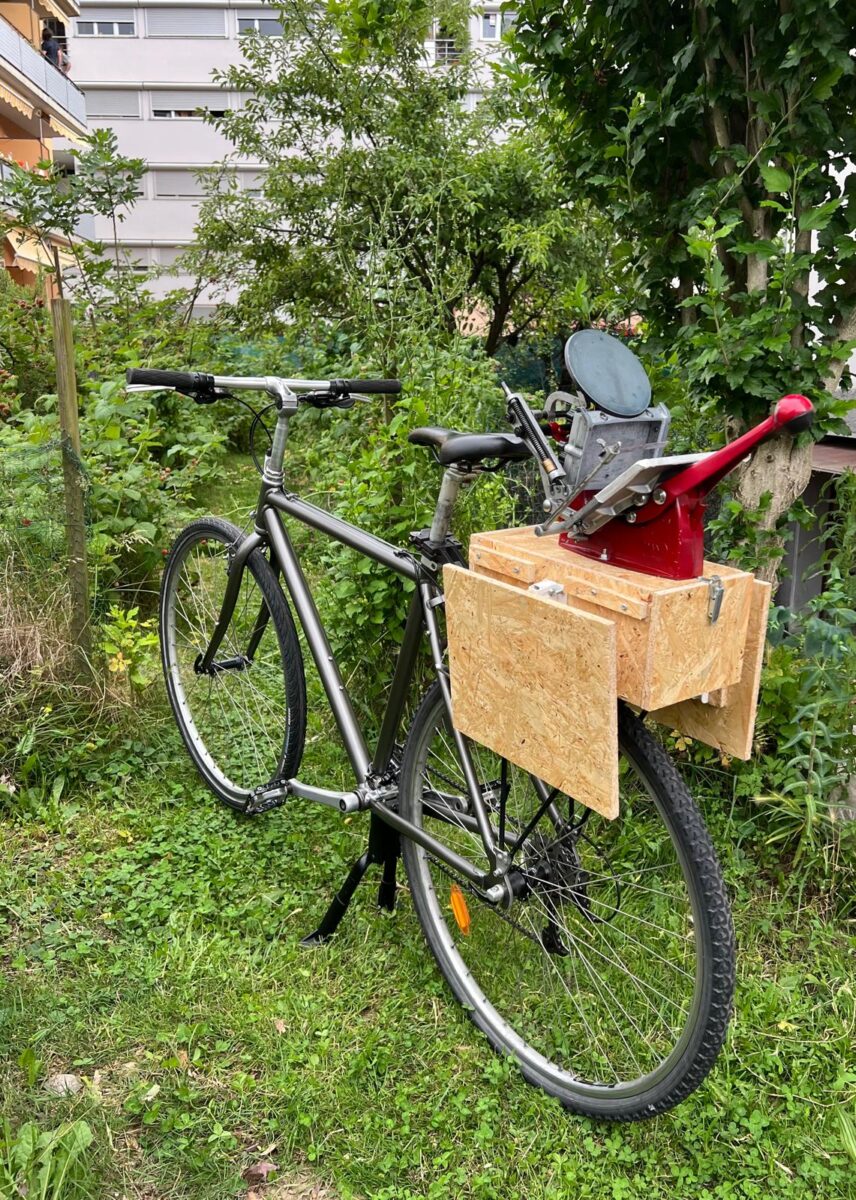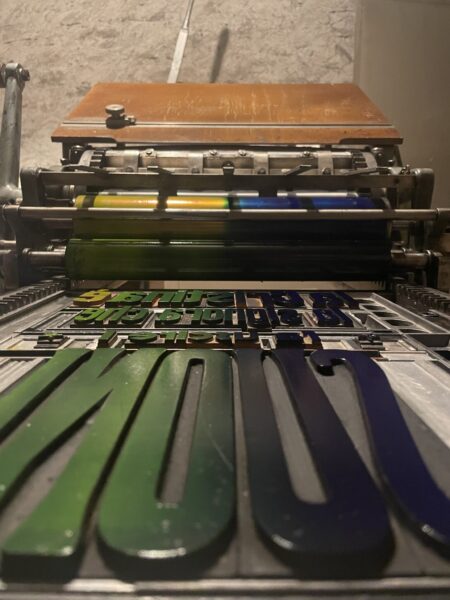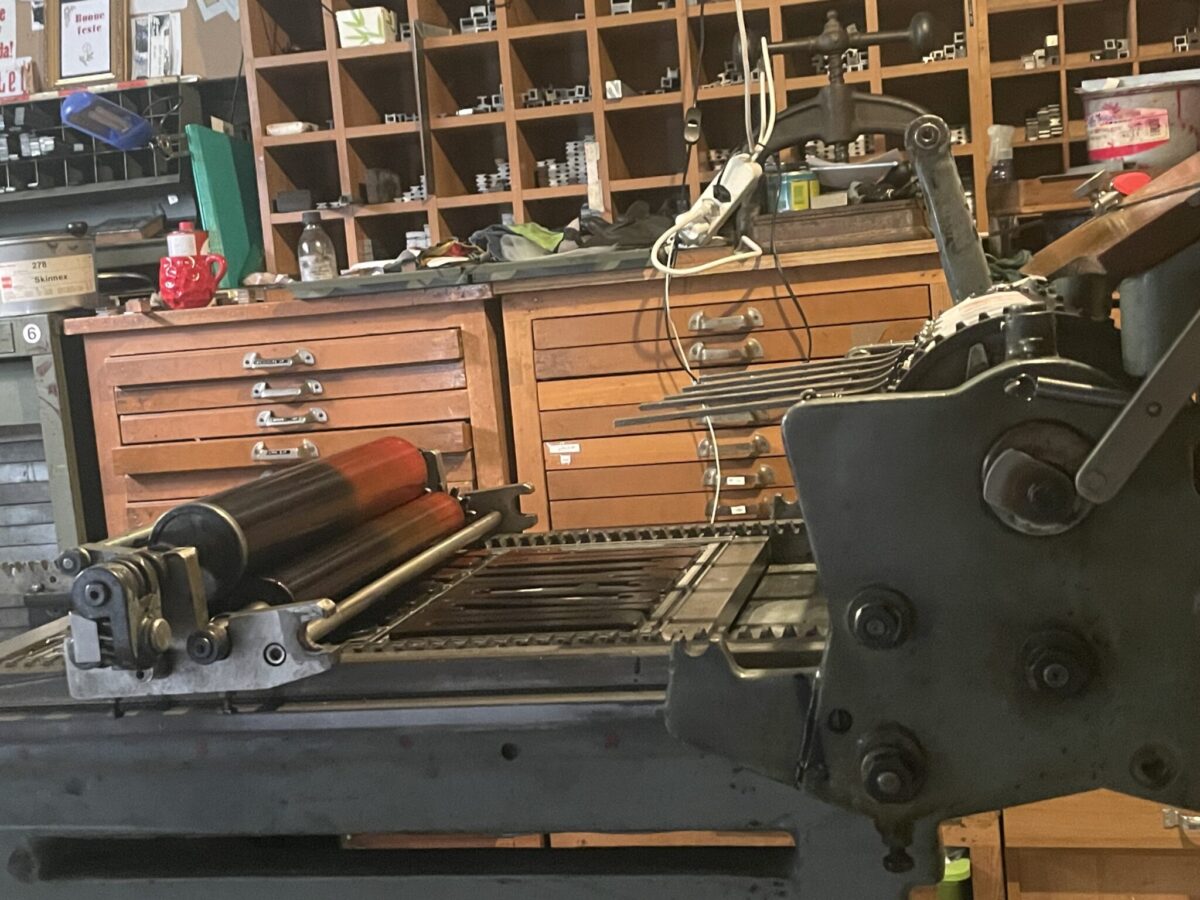
Bellinzona, Svizzera, ma credo che "nostra patria sia il mondo intero"
Two years ago.
Due anni fa.
Describe your first encounter with letterpress
When I was about 3 or 4 years old, my grandfather read me a Barbapapa children's book where the characters printed a book using movable type (I was born in 2010, it was a pretty old book). From then on, I became passionate about printing in general, making potato stamps and using little stamps for fun.
Avevo circa 3-4 anni, mio nonno mi ha letto un libro per bambini dei Barbapapà, in cui i personaggi stampavano un libro a caratteri mobili (sono nato nel 2010, era un libro piuttosto vecchiotto). Da lì mi sono appassionato della stampa in generale, facendo per gioco stampi con patate e stampini.
Where did you learn?
Being self-taught, over time I set up my own workshop. I learned a lot by meeting people through Facebook, who helped me a ton.
Da autodidatta, col tempo ho creato il mio laboratorio. Ho imparato molto conoscendo persone attraverso Facebook, che mi hanno aiutato tantissimo.
Who was your most influential teacher?
I didn't have a teacher in the traditional sense; many printers in different parts of the world helped me (like John B Easson or Thomas Gravemaker, Paolo Celotto). I often exchange ideas with Luca Lattuga, who helped me a lot with, for example, buying my proof press.
Non ho avuto un maestro nel senso tradizionale, mi hanno aiutato molti tipografi in diverse parti del mondo (come John B Easson o Thomas Gravemaker, Paolo Celotto), ho spesso degli scambi con Luca Lattuga, che mi ha aiutato molto con, ad esempio, acquistare il mio tiraprove.
What super power would you like to have?
More patience and being more organized.
Più pazienza e essere più ordinato.
Do you prefer to work alone or with others?
I am used to working alone, but I really enjoy working with others. It depends on the type of work.
Sono abituato a lavorare da solo, ma mi piace molto lavorare in compagnia. dipende dal tipo di lavoro.
What do you most value in your friends?
The passion in what they do
La passione in ciò che fanno
When do your best ideas occur to you?
When I am not looking for them or when, for some reason, I cannot print. But as soon as I get the chance to bring them to life, I often have second thoughts.
Quando non le cerco o quando, per qualche motivo, non posso stampare. Poi appena ho l'occasione di realizzarle spesso non mi convincono più.
If you were to die and come back as a typeface, which would it be?
I think Helvetica, but I would also really like to be an Art Nouveau typeface like Barnum.
Penso l'Helvetica, ma anche un liberty come il Barnum mi piacerebbe molto.
What tool do you use more often than any other?
The typometer, even though I often measure by eye.
Il tipometro, anche se spesso misuro ad occhio.
What books are currently on your nightstand?
The biography of Steve Jobs, a book from 2025 on Flottiglia and several graphic design/typography books, like the "Graphis Annual".
La biografia di Steve Jobs, un libro sulla Flottiglia del 2025 e diversi libri di grafica/tipografia, come il "Graphis Annual".
If you could study with any printer throughout history, who would it be?
I would absolutely love to work with Jost Hochuli. But also to spend a few days with various contemporary typographers.
Mi piacerebbe moltissimo lavorare Jost Hochuli. Ma anche fare delle giornate con diversi tipografi contemporanei.
If you have your own shop, what equipment do you own?
A Korrex Stuttgart proof press, a large format Adana, a large exposure unit – which I rarely use –, a paper cutter that I restored, a bike with a small Adana mounted on it, a proof press. Three furniture racks, many type cabinets. Soon I will have two 1.50-meter-high Boston presses to restore.
Un proofpress Korrex Stuttgart, un'Adana formato grande, Un grande bromografo -che uso raramente-, un tagliarisme che ho restaurato, una bici con montata sopra una piccola Adana, un tirabozze. Tre marginiere, molte cassettiere. Presto avrò due Boston alte 1.50 metri da restaurare.
If you could change one thing about your shop, what would it be?
Managing to keep the print shop organized.
Riuscire a tener ordinata la stamperia.
When and where are you the happiest?
When I'm with my cats, Maui and Olivia, and when I print.
Quando sono con i miei gatti, Maui e Olivia, e quando stampo.
What is your greatest fear/worry?
Damaging my equipment, humidity, carelessness... or the exposure unit catching fire.
Danneggiare la mia attrezzatura, umidità, disattenzione... o il bromografo che prende fuoco.
What do you think is useful about what you make?
Spreading awareness of this technique, restoring various machinery and materials, and saving them from destruction.
Far conoscere questa tecnica e rimettere in funzione e salvare dalla distruzione macchinari e materiali vari.
What’s your day job?
I'm starting graphic design school next year.
Devo iniziare la scuola come grafico il prossimo anno.
Do you use any other techniques or media besides letterpress?
Yes, I also work with my Mac, for graphics or 3D printing; I often integrate these two into letterpress printing.
Si, lavoro anche con il mio Mac, per grafica o stampa 3d, spesso integro le ultime due nella stampa letterpress.